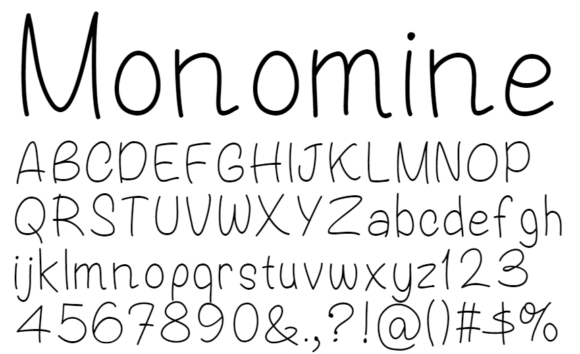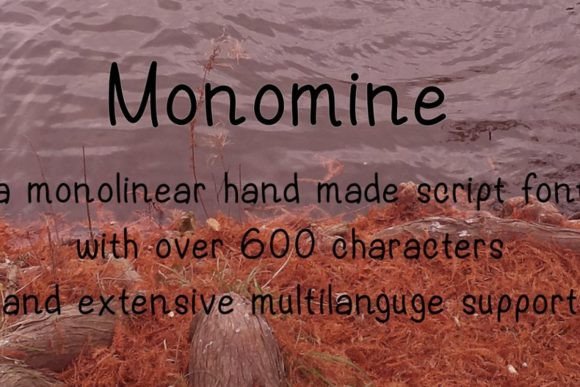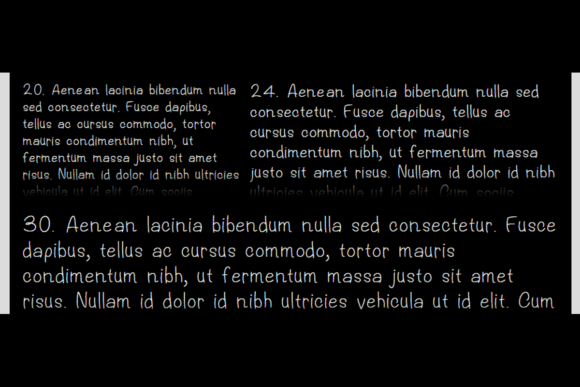
Monomine Font
About Monomine Font
Introducing Monomine, a mono-linear hand-made script font that exudes versatility and originality. Meticulously crafted, Monomine is a typeface designed with great care, making it an excellent choice for a wide range of hand-made projects or items that demand a distinctive and authentic appearance.
The mono-linear design of Monomine gives it a modern and balanced aesthetic. The consistency in line weight creates a harmonious and polished look, making it suitable for various applications. Whether you’re working on crafts, DIY projects, or any item that requires a touch of originality, Monomine is ready to be your creative companion.
This font’s versatility shines through in its ability to adapt to different design contexts. Its hand-made script style adds a human touch to your projects, making them stand out with a personalized and unique look. Monomine is well-suited for a variety of applications, from packaging and labels to signage, posters, and more.
For hand-made projects that seek an original and distinctive appearance, Monomine is the perfect choice. Its mono-linear script adds character and charm, creating a visual language that resonates with authenticity. The careful crafting of this typeface ensures that it maintains its appeal across diverse design applications.
In summary, Monomine is more than just a font; it’s a creative tool that adds a touch of originality to your hand-made projects. Its mono-linear design, coupled with a hand-made script style, creates a visual language that stands out with its unique charm. Download Monomine now and infuse your designs with a versatile and hand-crafted appeal that captures attention and adds a personalized touch to your creative endeavors.